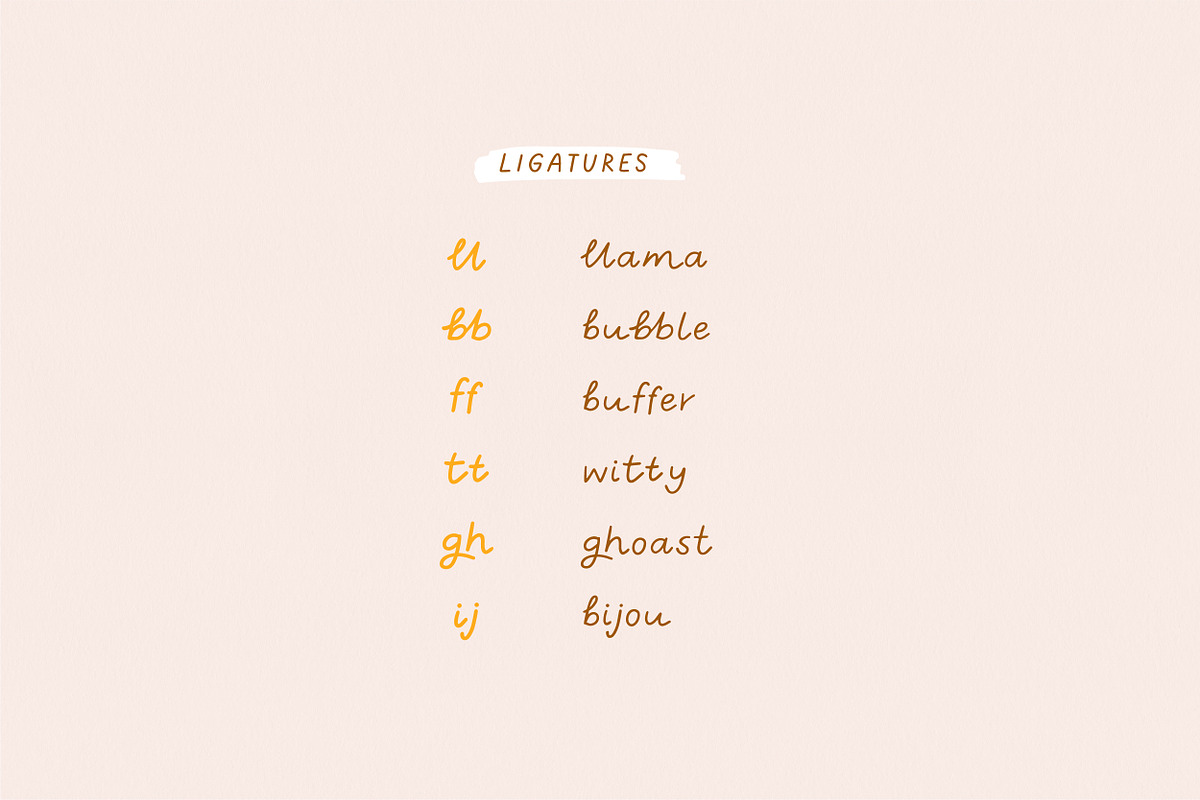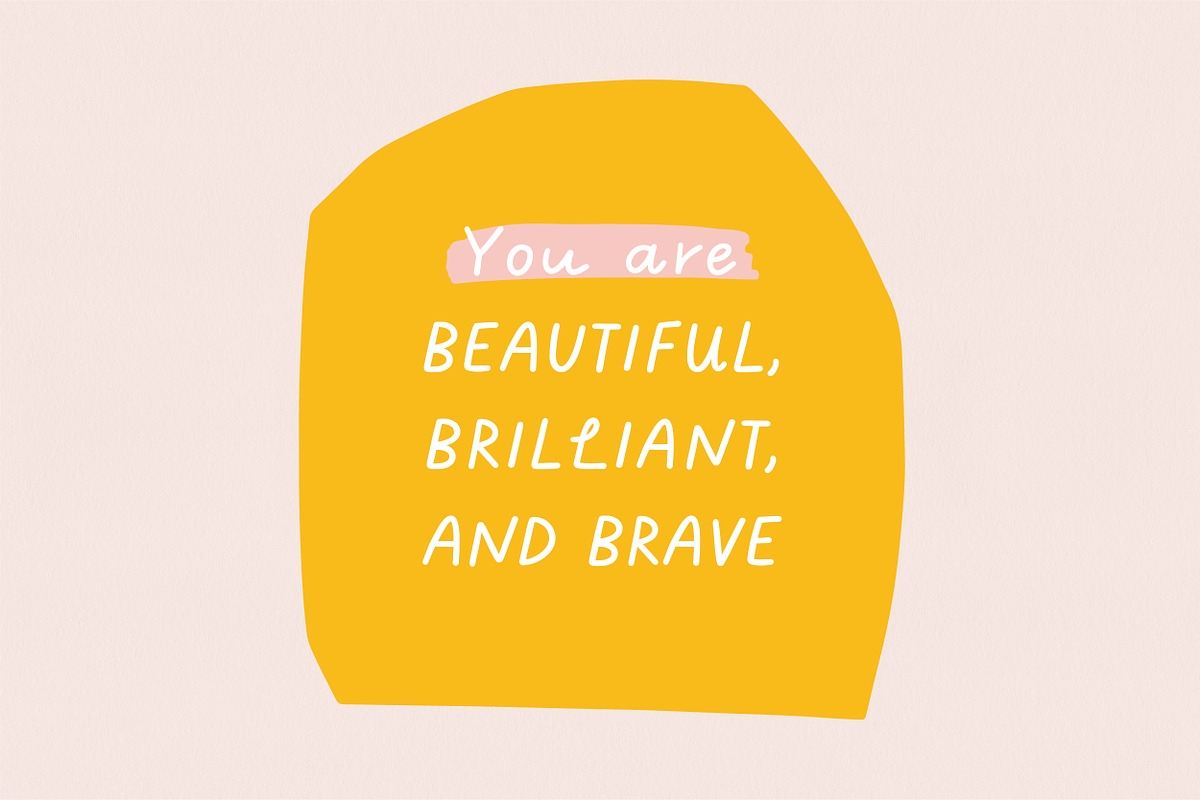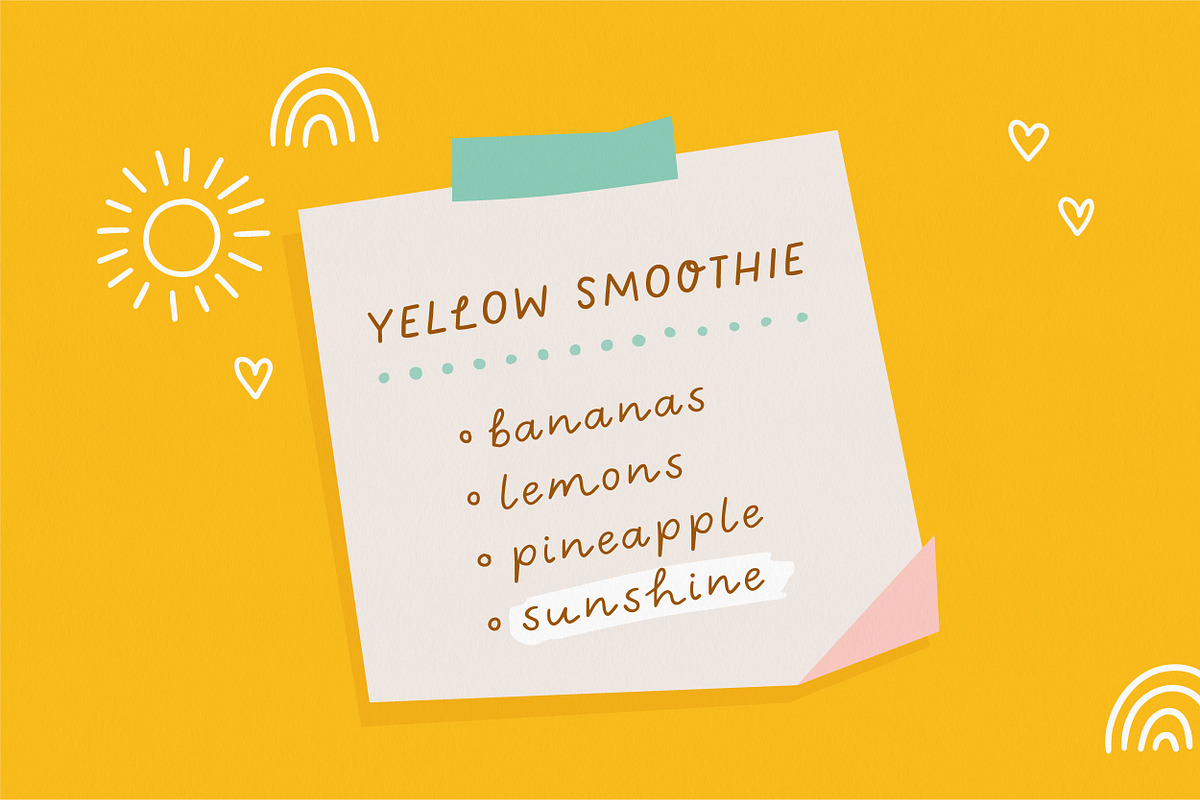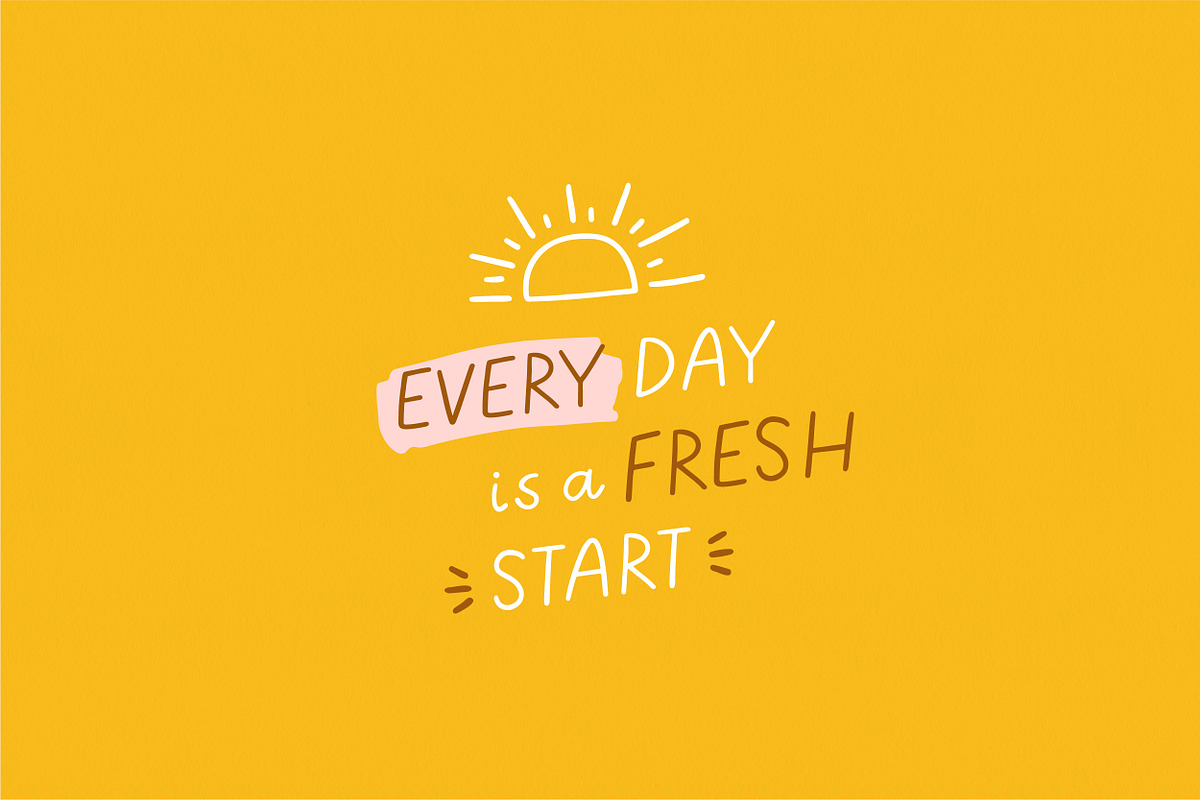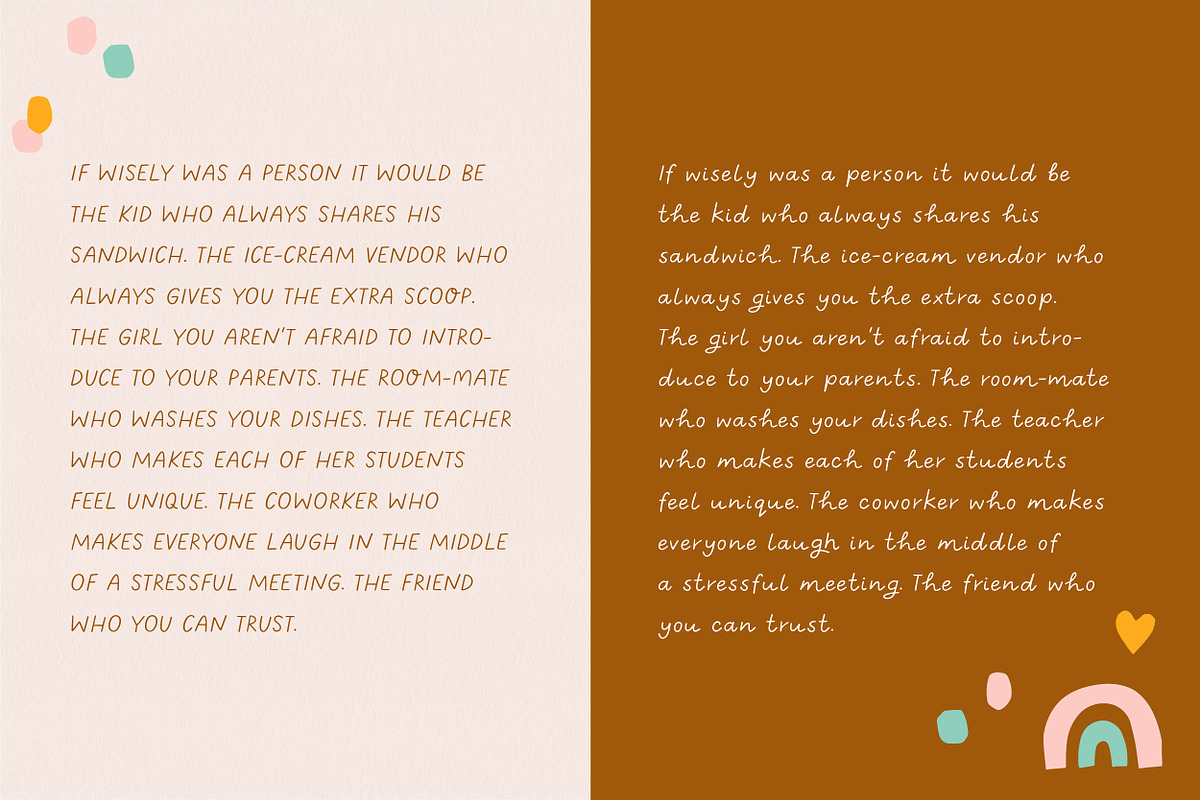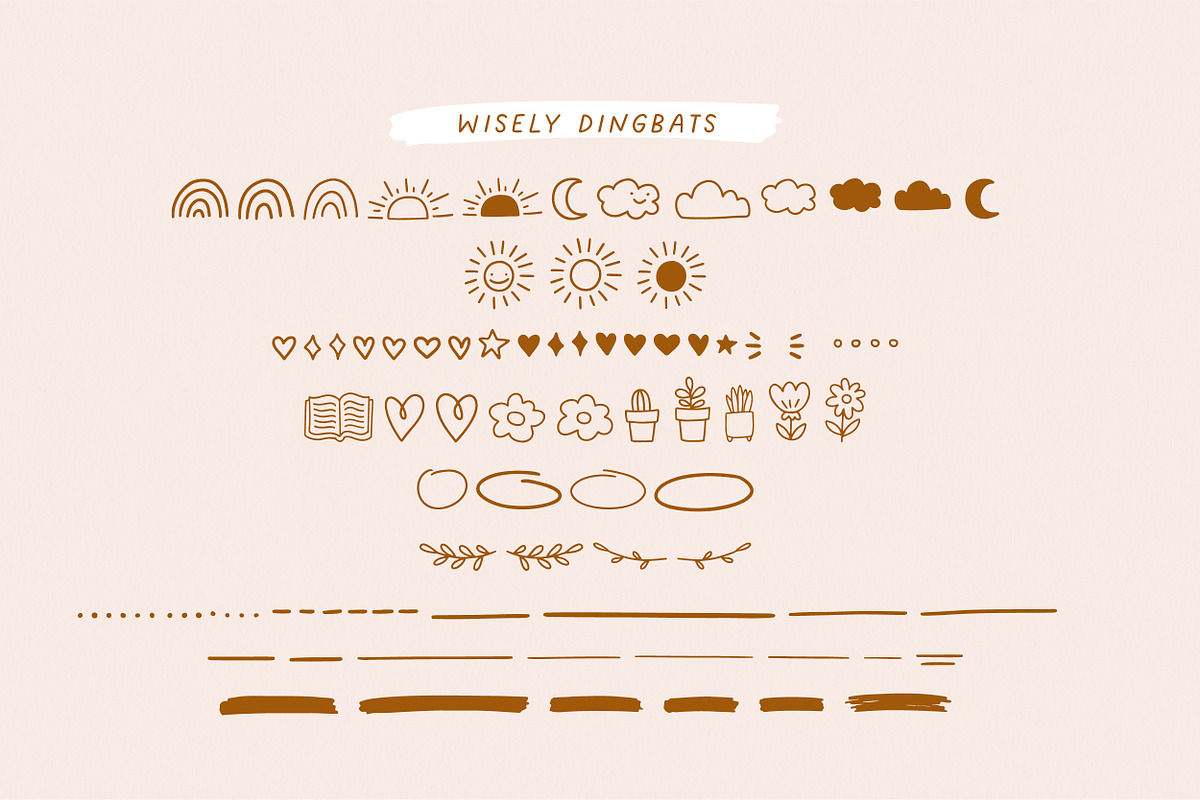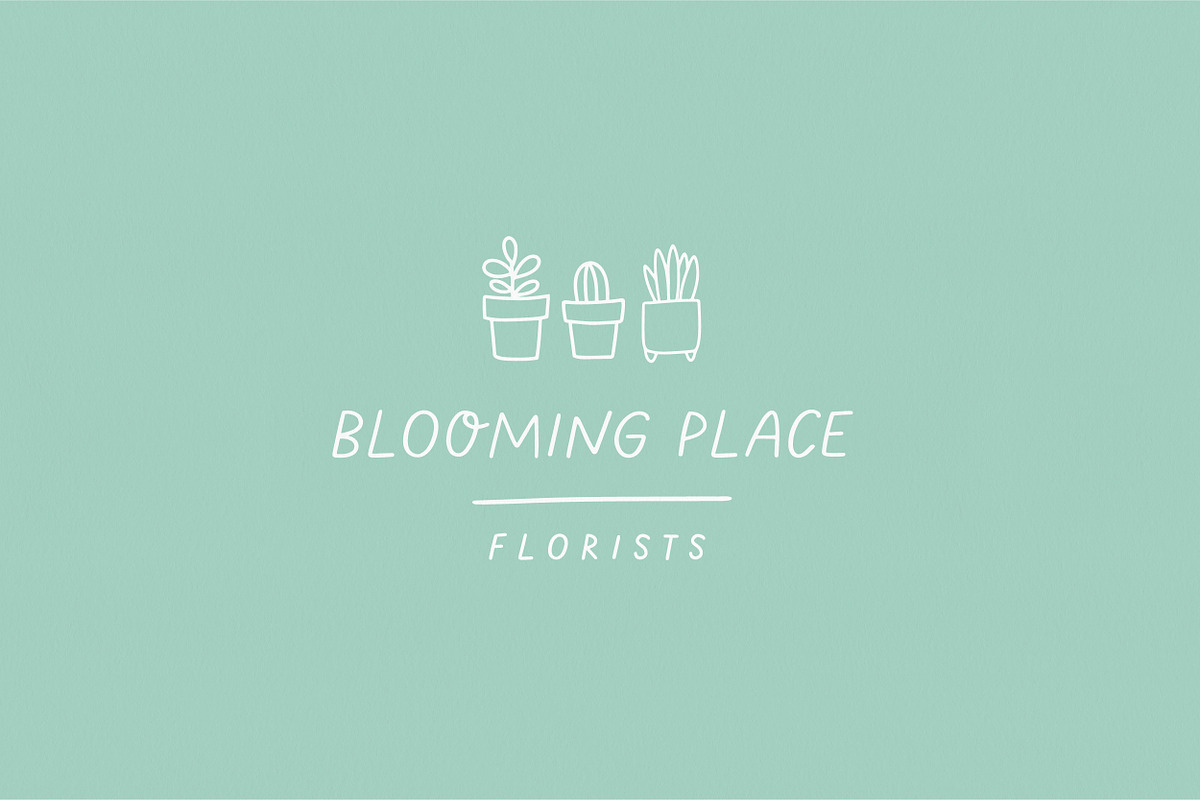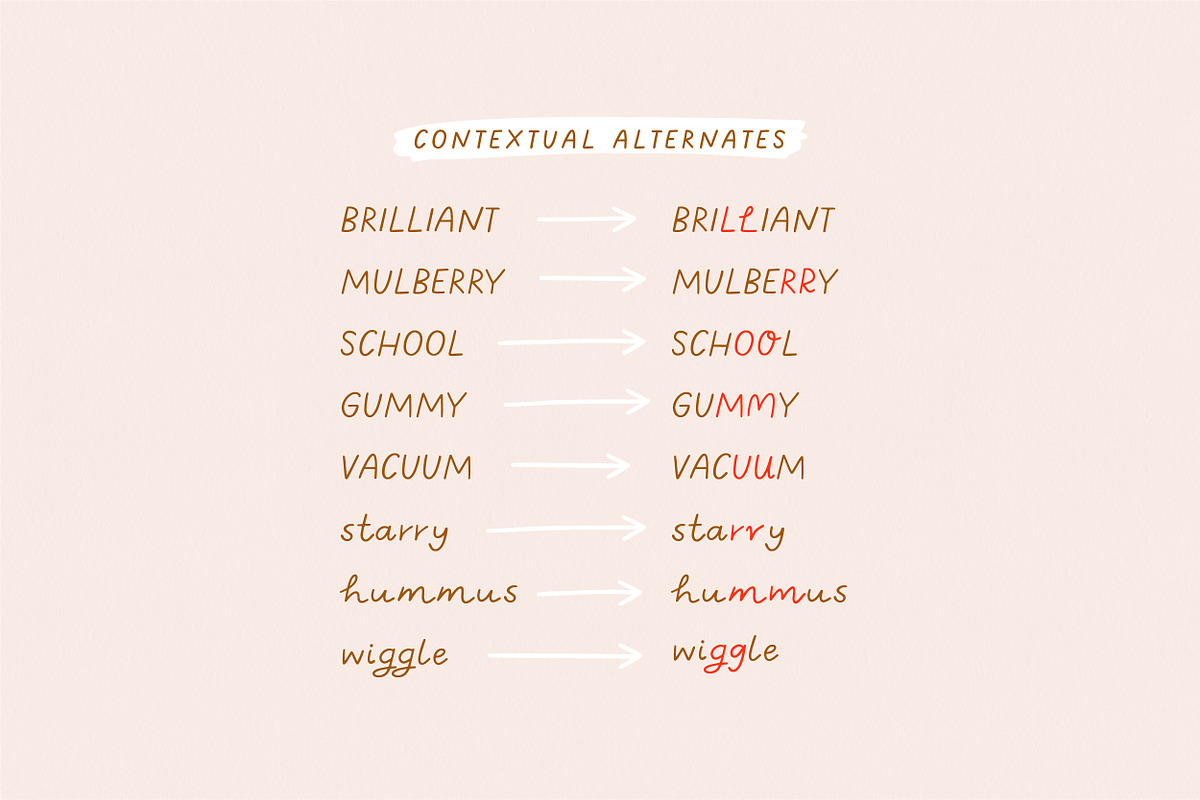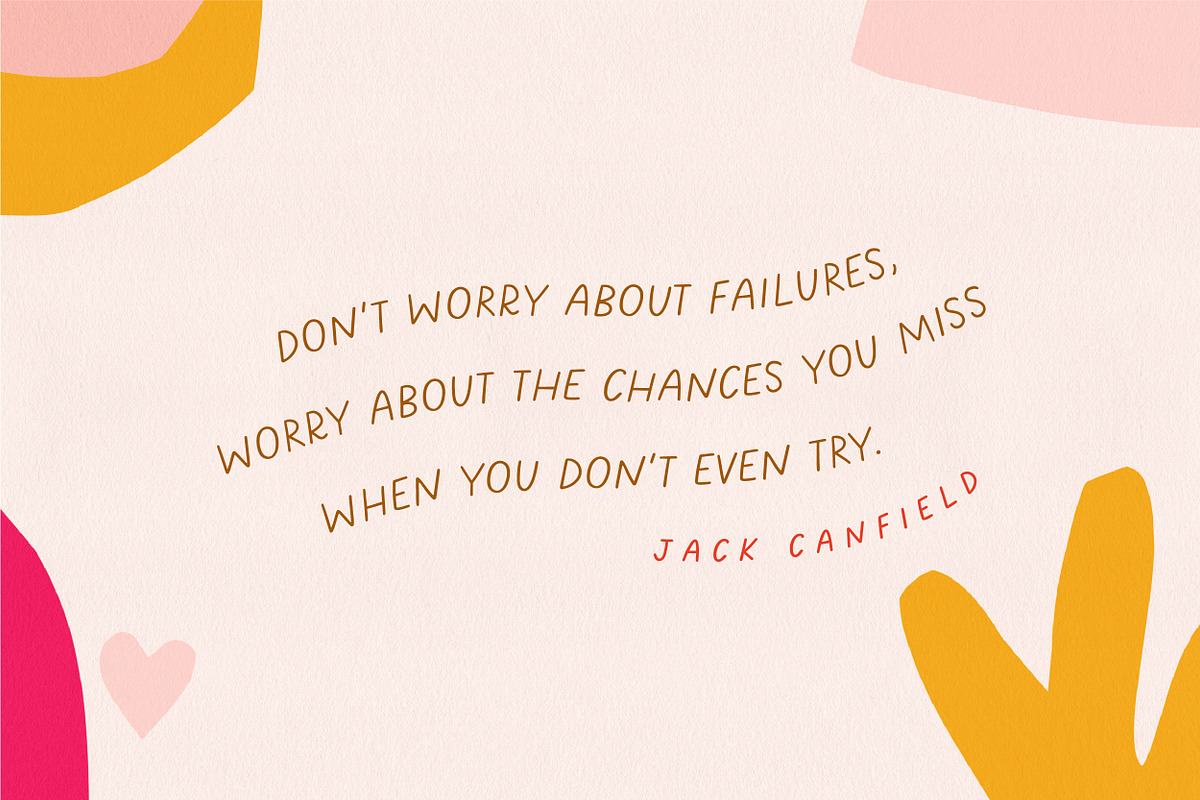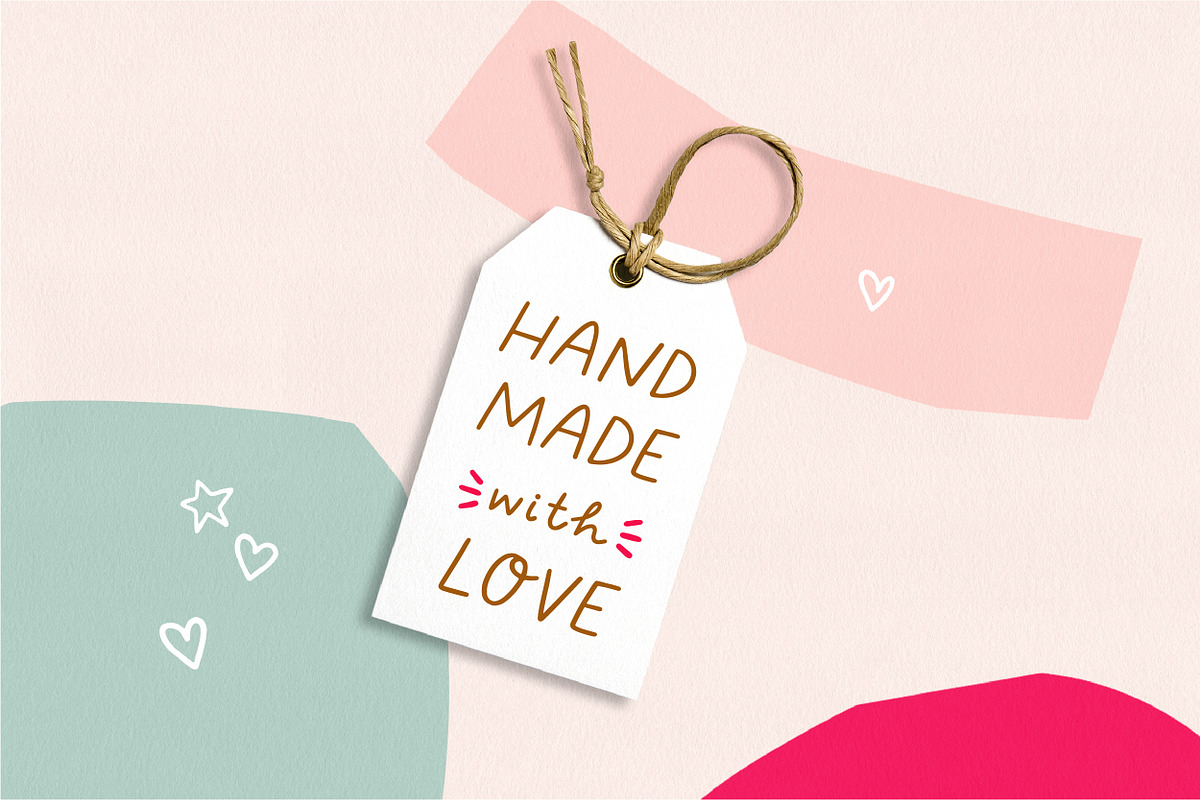
Wisely | Handwritten Font Trio
Introducing Wisely - a heart-warming hand drawn font that will brighten your day.
Perfect for writing out uplifting quotes for instagram posts, wall art or greeting cards. It will also be there for you if you need to design some charming packaging or branding.
Suitable for short and sweet quotes, as well as longer meaningful paragraphs. Designed and kerned with care and love to make using it a breeze.
- contextual alternates to give the text this hand-written look you need
- many stylistic alternates for uppercase and lowercase
- multilingual support with accented characters for international designers For those who can't use OpenType features, I included TTF files which are a simplified version of the font (without alternates and ligatures).
As a bonus, I include a pack of fun doodles and marks which you can access as a Dingbat font or pick and choose from the vector file.